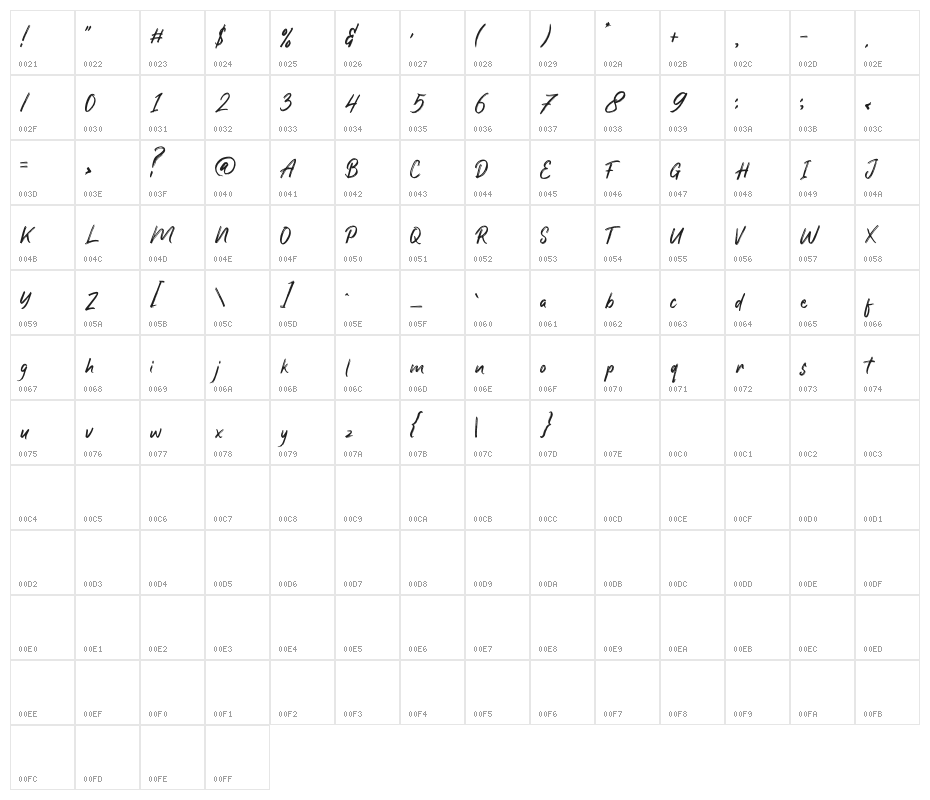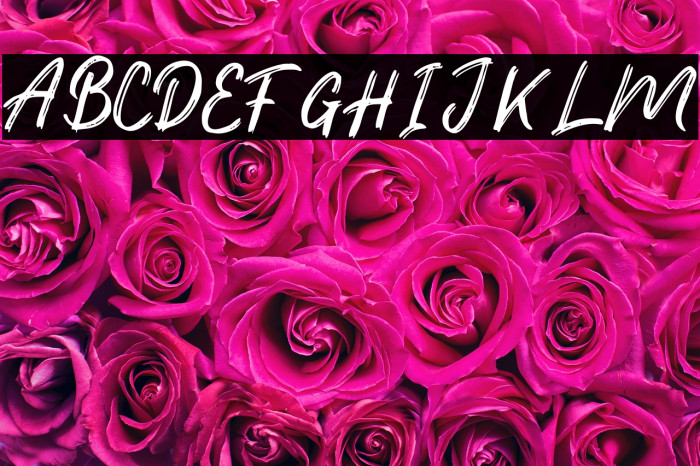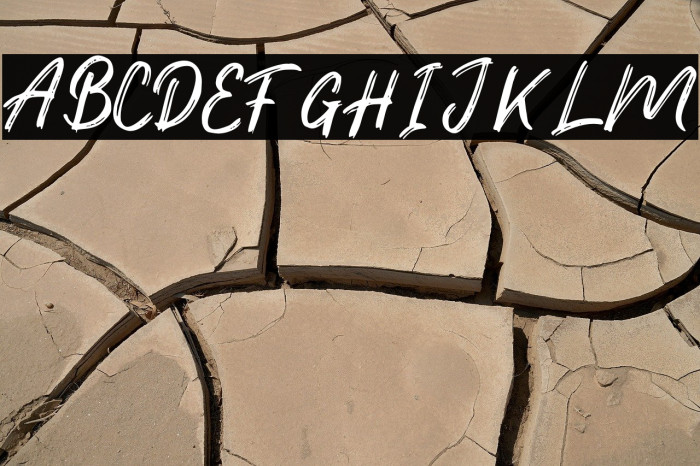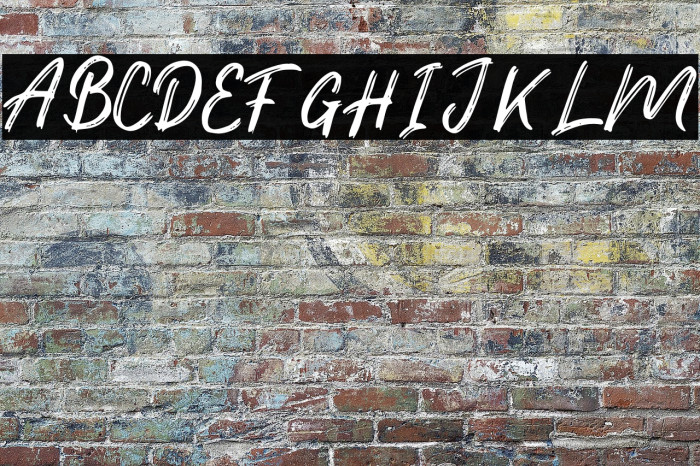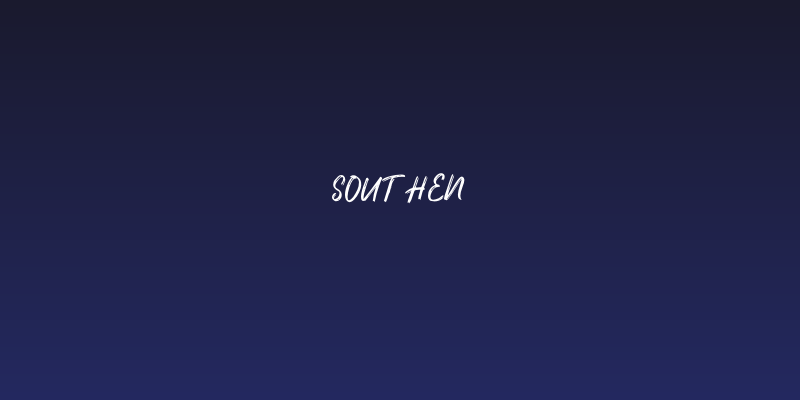
Southen Font
Southen Description
This font features a dynamic and expressive handwritten style with a brush-like appearance. The uppercase letters are bold and slightly slanted, giving a sense of movement and energy. The lowercase letters maintain a consistent flow, complementing the uppercase with their fluid curves. Numbers and special characters are crafted with the same artistic flair, ensuring a cohesive look across all text. The strokes vary in thickness, adding a natural and organic feel to the design. This font is ideal for projects that require a personal touch or a creative, artistic vibe.
Proposed ProjectsIdeal for branding, invitations, posters, and social media graphics.